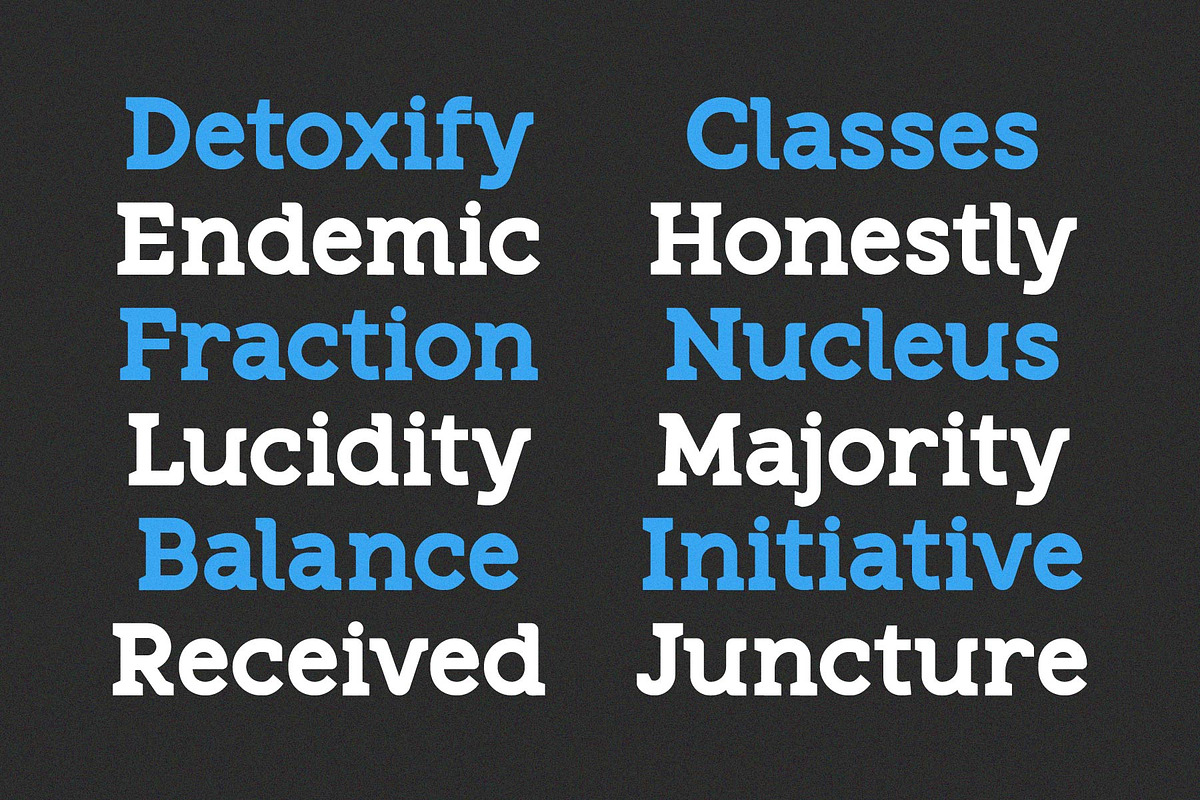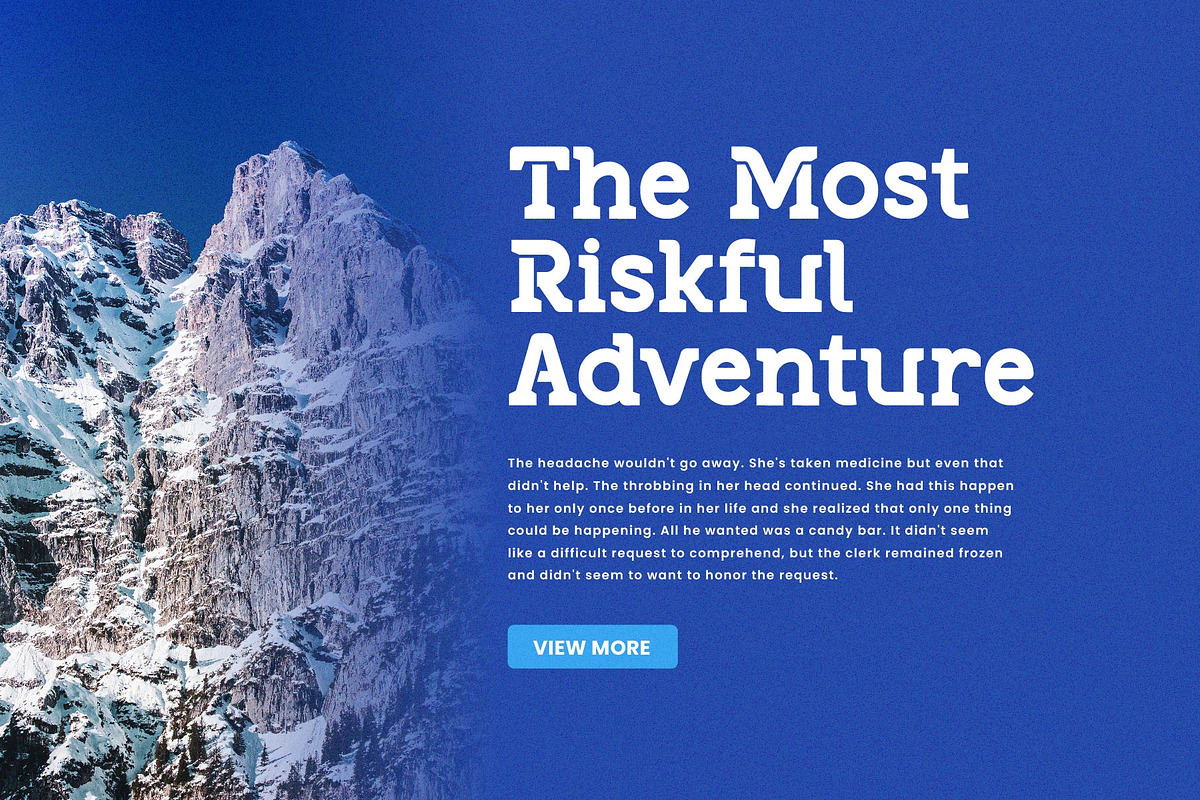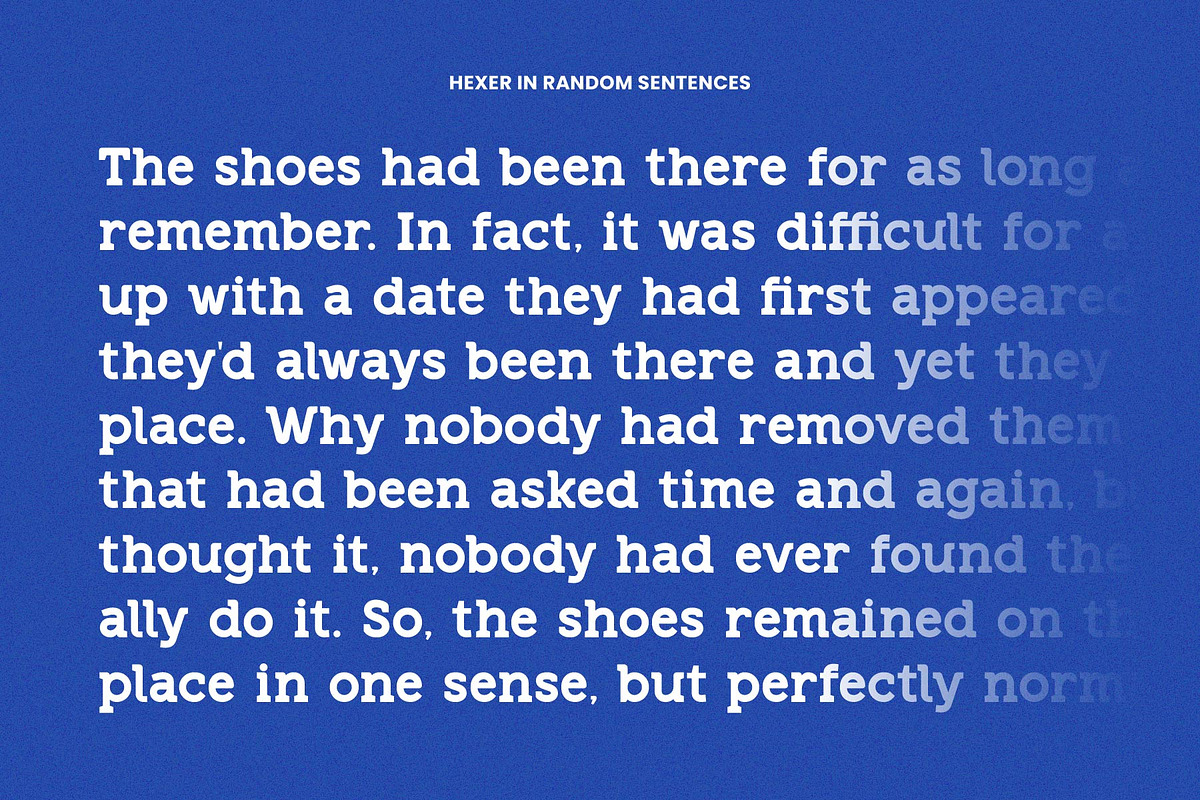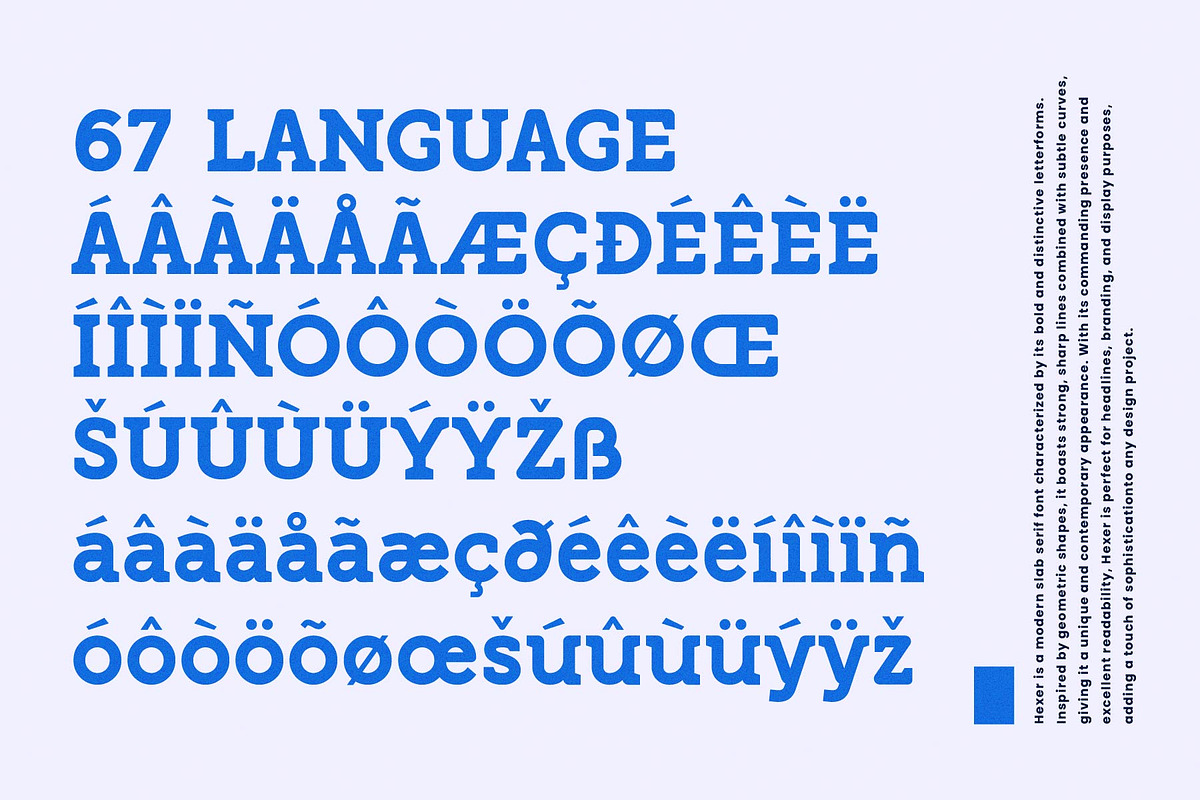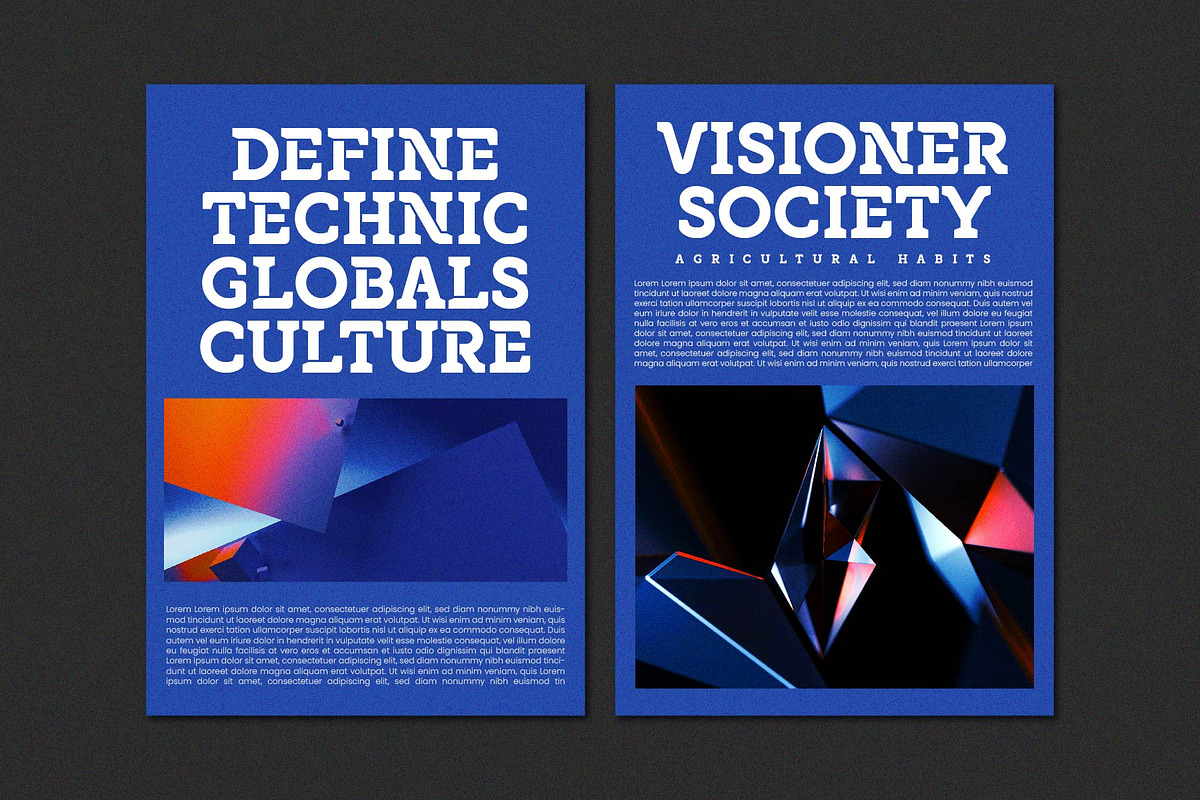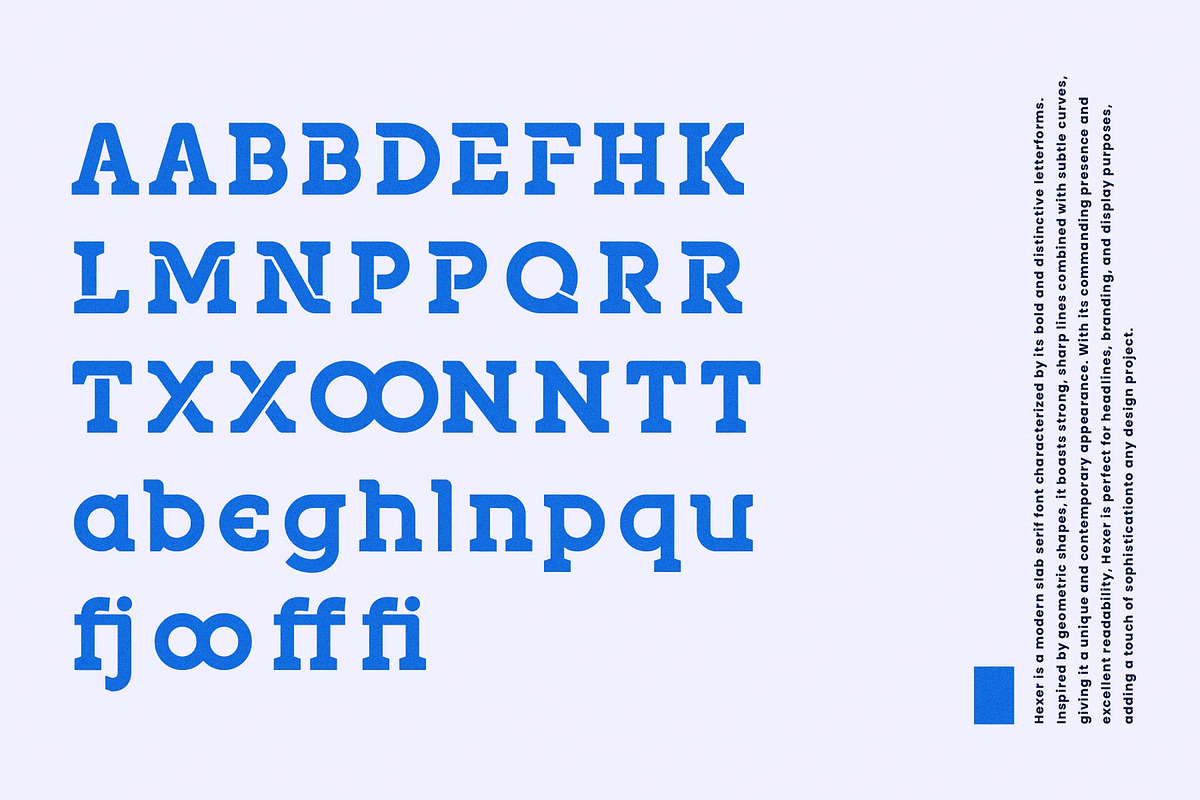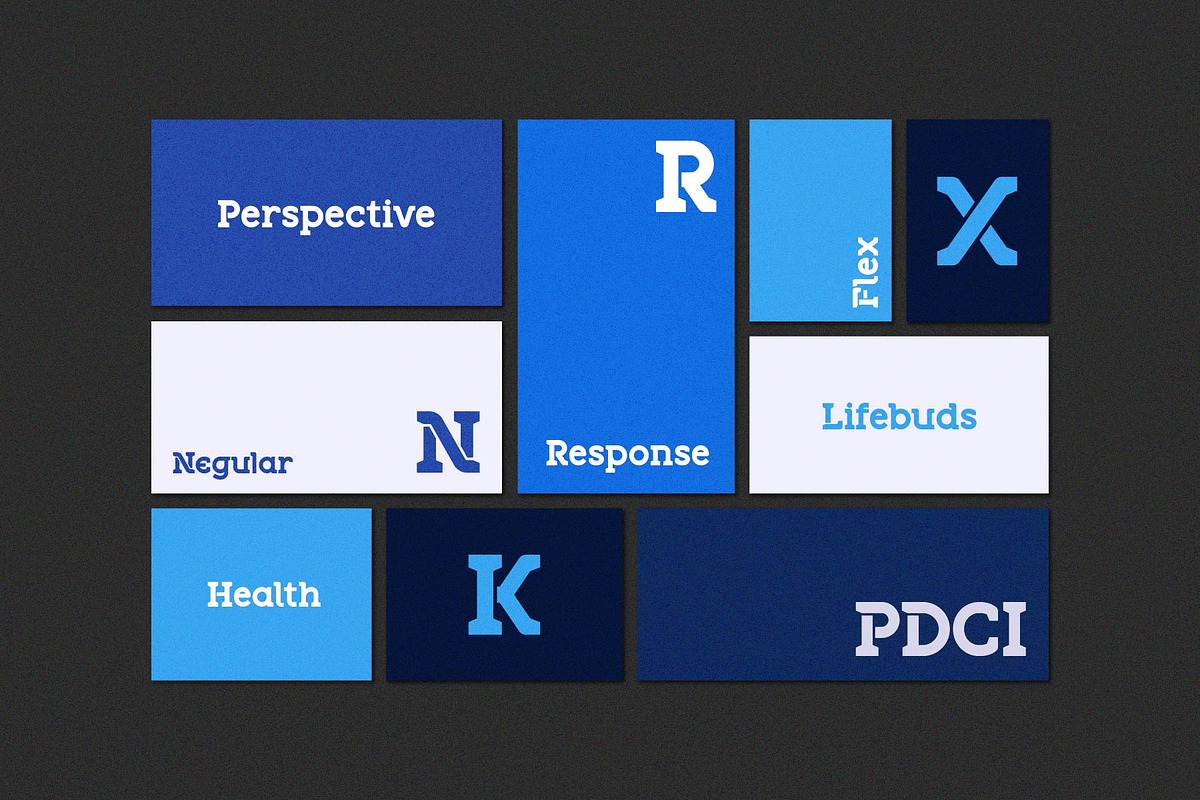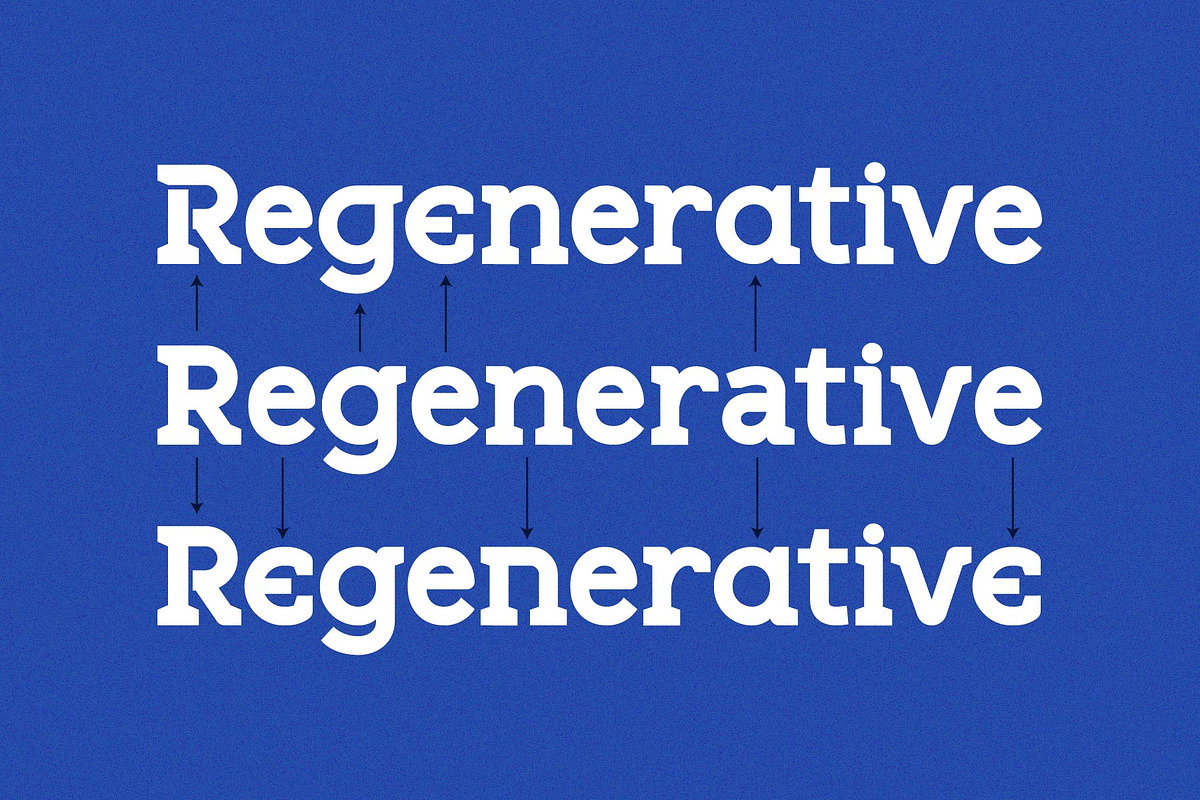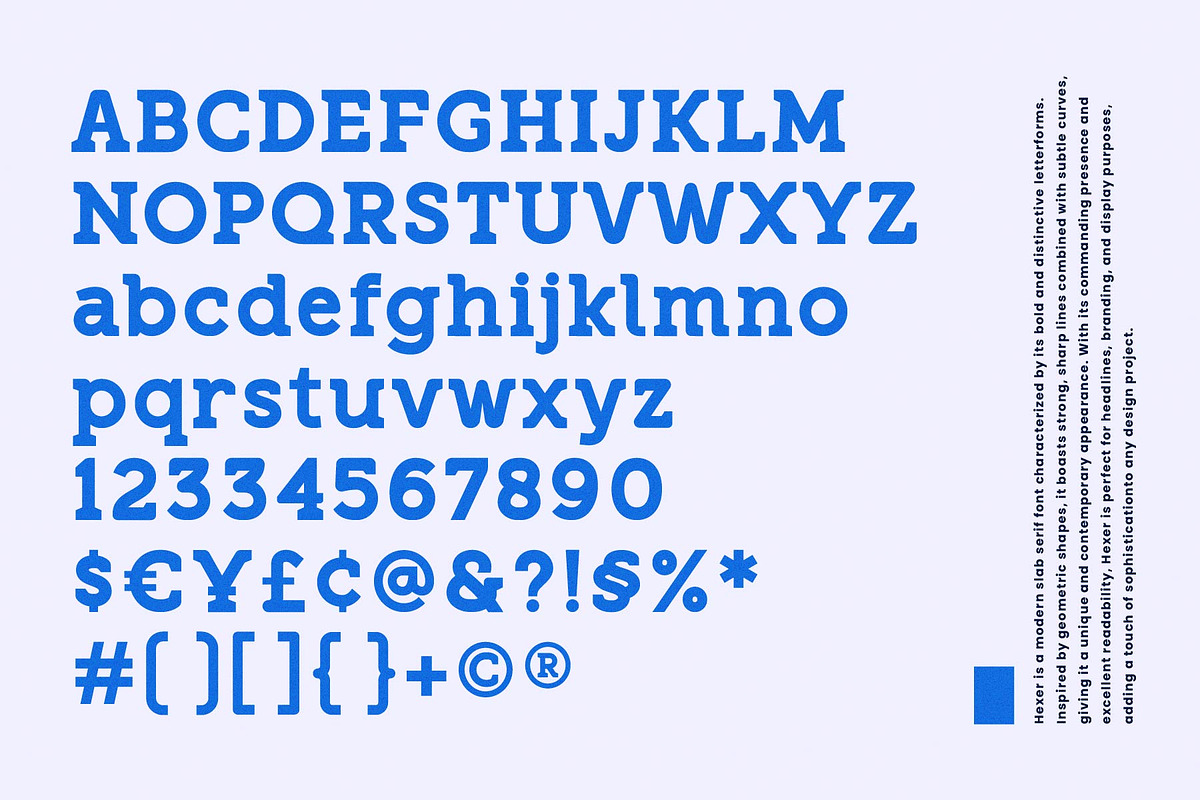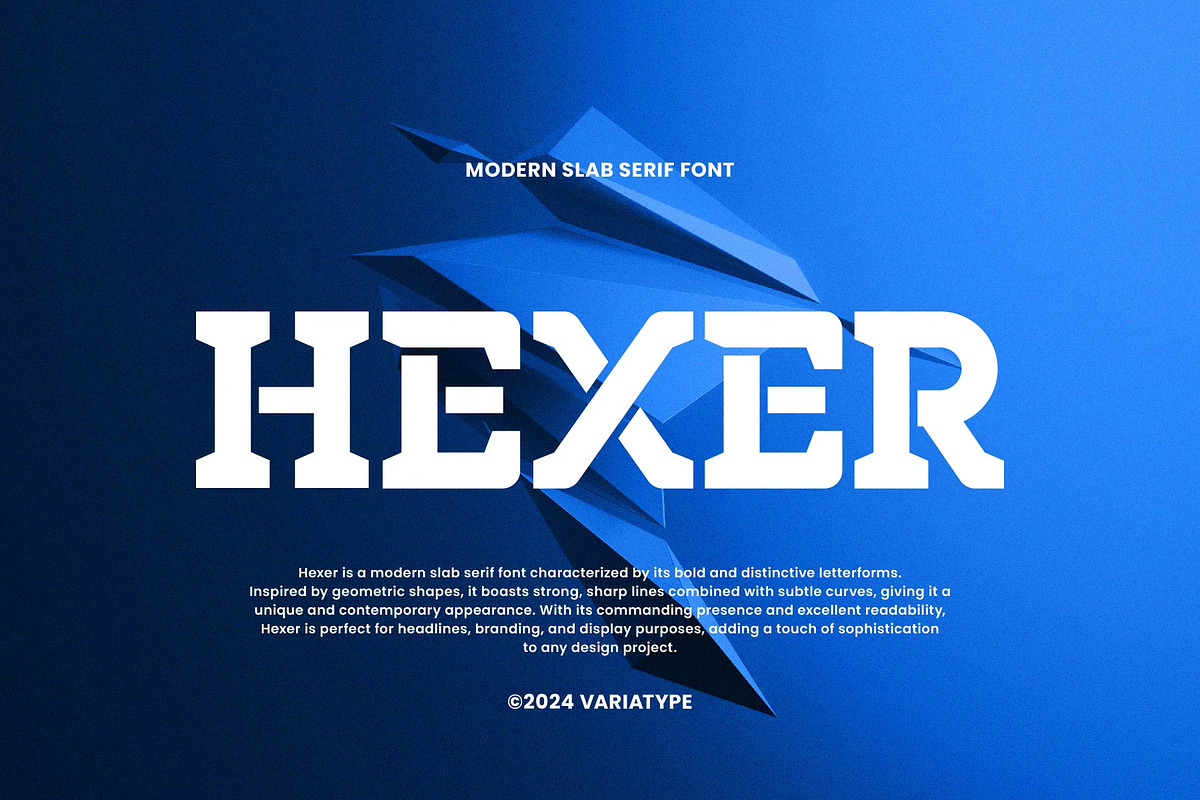
Hexer - Modern Slab Serif
Hexer is a modern slab serif font characterized by its bold and distinctive letterforms. Inspired by geometric shapes, it boasts strong, sharp lines combined with subtle curves, giving it a unique and contemporary appearance. With its commanding presence and excellent readability, Hexer is perfect for headlines, branding, and display purposes, adding a touch of sophistication to any design project.